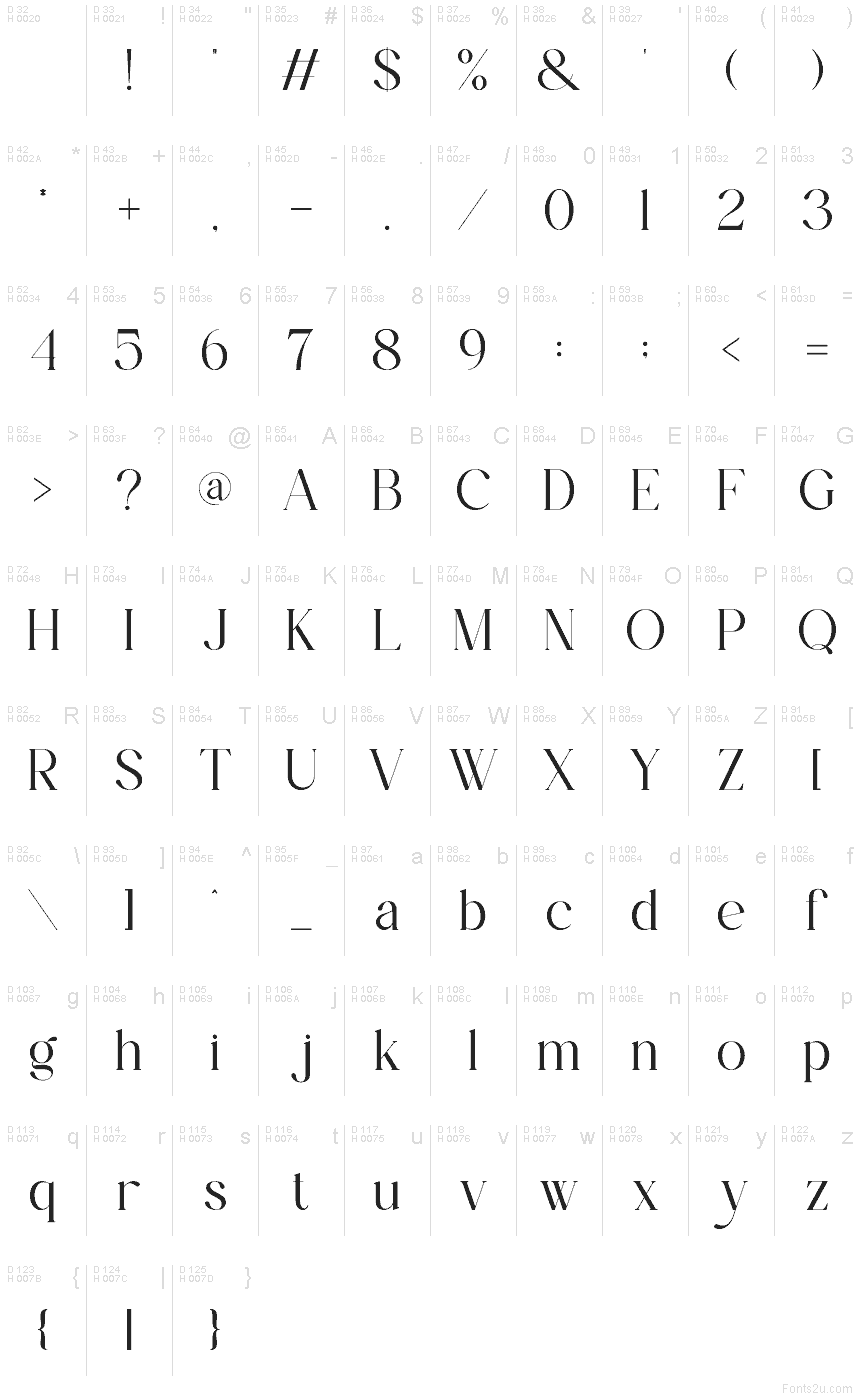
Silorin
Silorin font by Ermedia Studio is a free high-contrast serif display font. It leans into fashion-grade drama: razor-thin hairlines against inky thick strokes, teardrop terminals that glint like wet ink, and elegant, elongated curves that feel sculpted rather than drawn. The rhythm is crisp and vertical, giving wordmarks a tall, refined silhouette while keeping just enough warmth in the bowls to avoid sterility.
Using Silorin, headlines and logotypes come off poised and luxurious. This free font shines on fashion branding, magazine covers, beauty packaging, wine labels, event invitations, posters, and website hero text. Its tight, confident spacing rewards generous letter sizing, and it pairs beautifully with a neutral grotesk or light geometric sans for body copy to let the serif detail breathe.